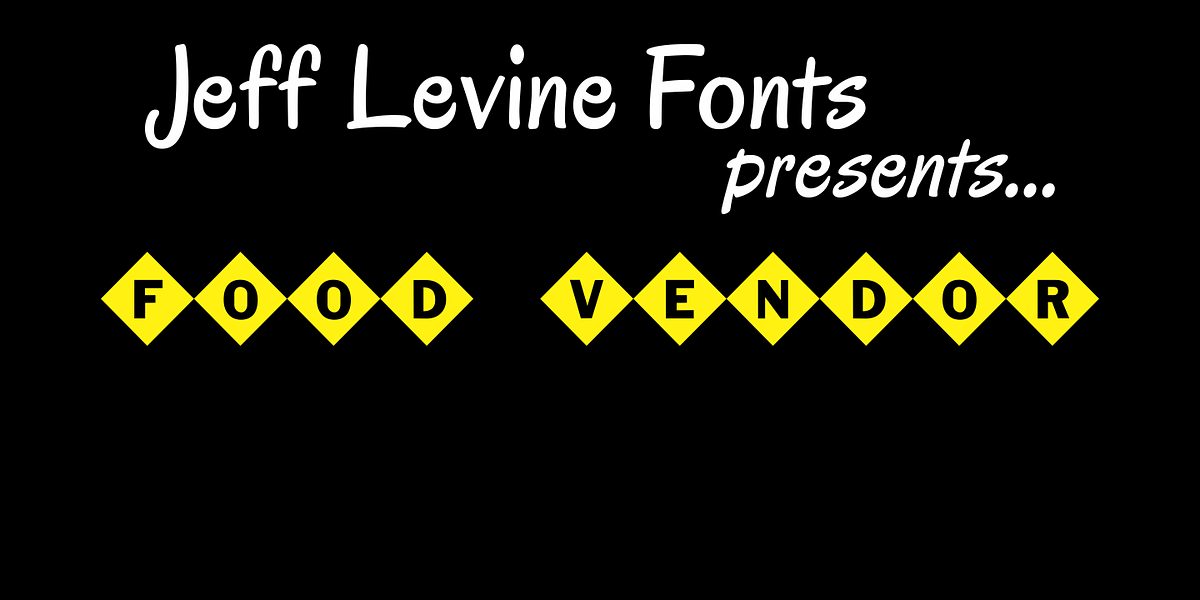
Food Vendor JNL
Here’s a simple little retro font that got its inspiration from a food vending truck pictured in a local newspaper’s online article. Fun and retro, Food Vendor JNL evokes simpler times.
The font is a basic character set, with a blank diamond on the equal sign keystroke for spacing or embellishment.